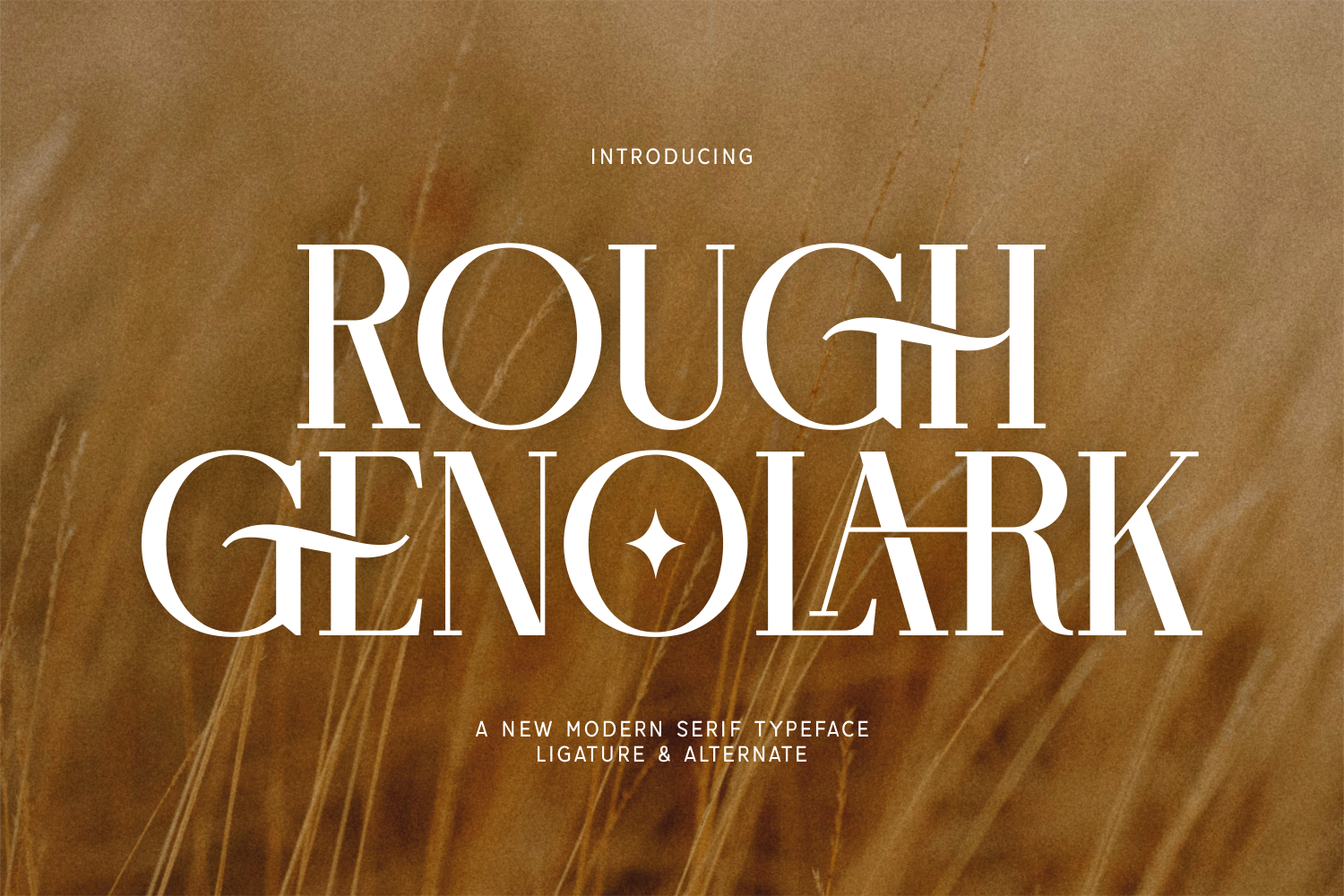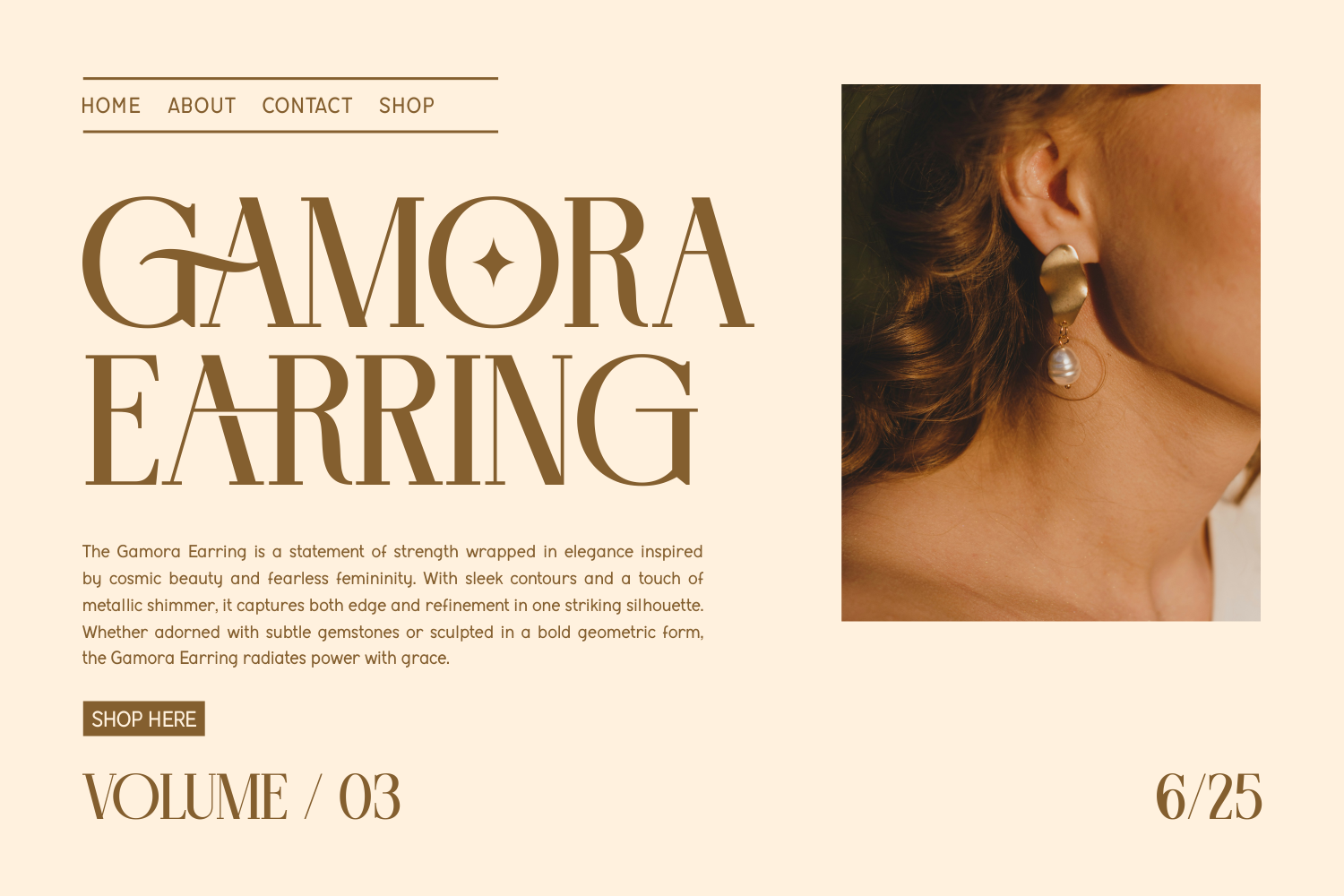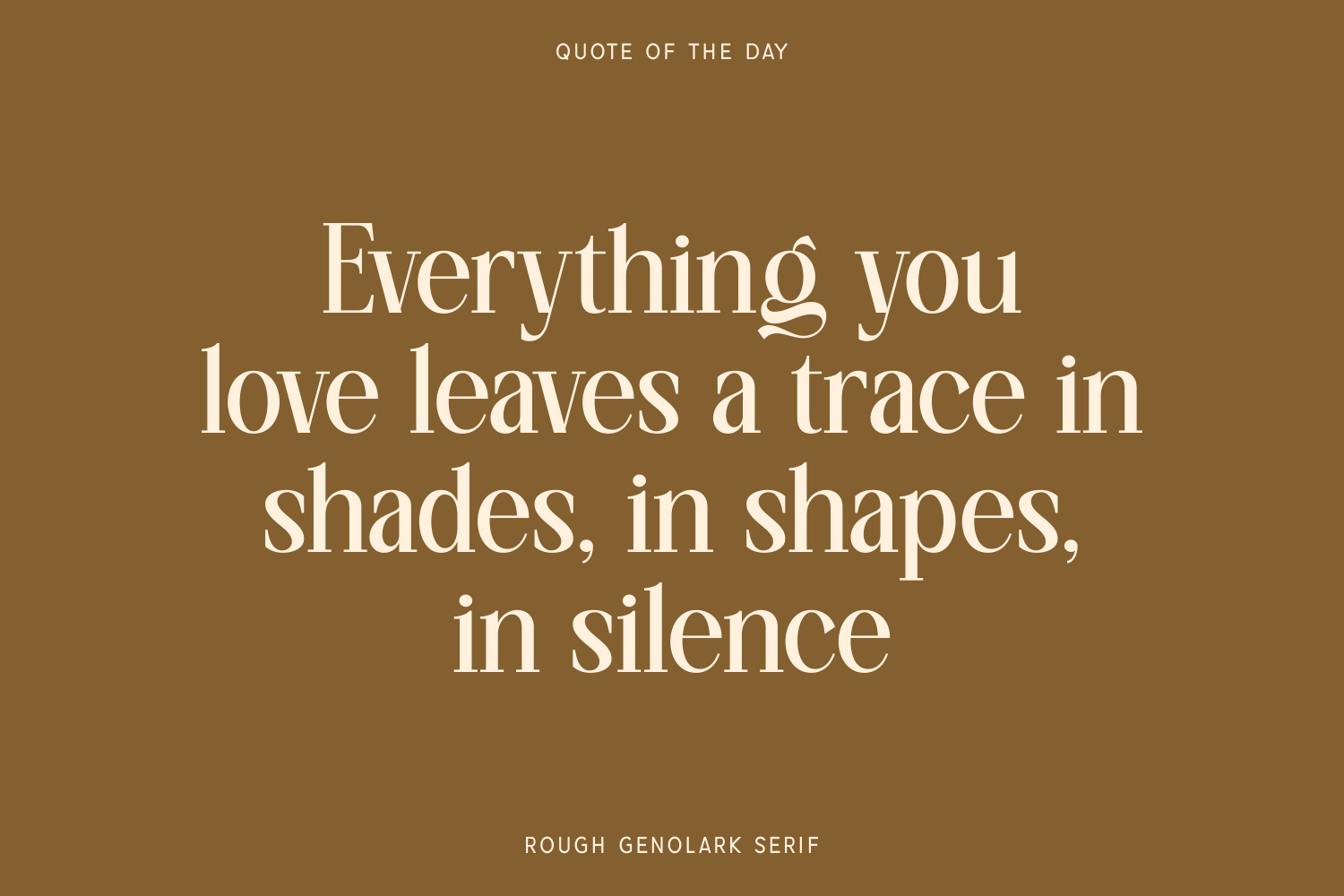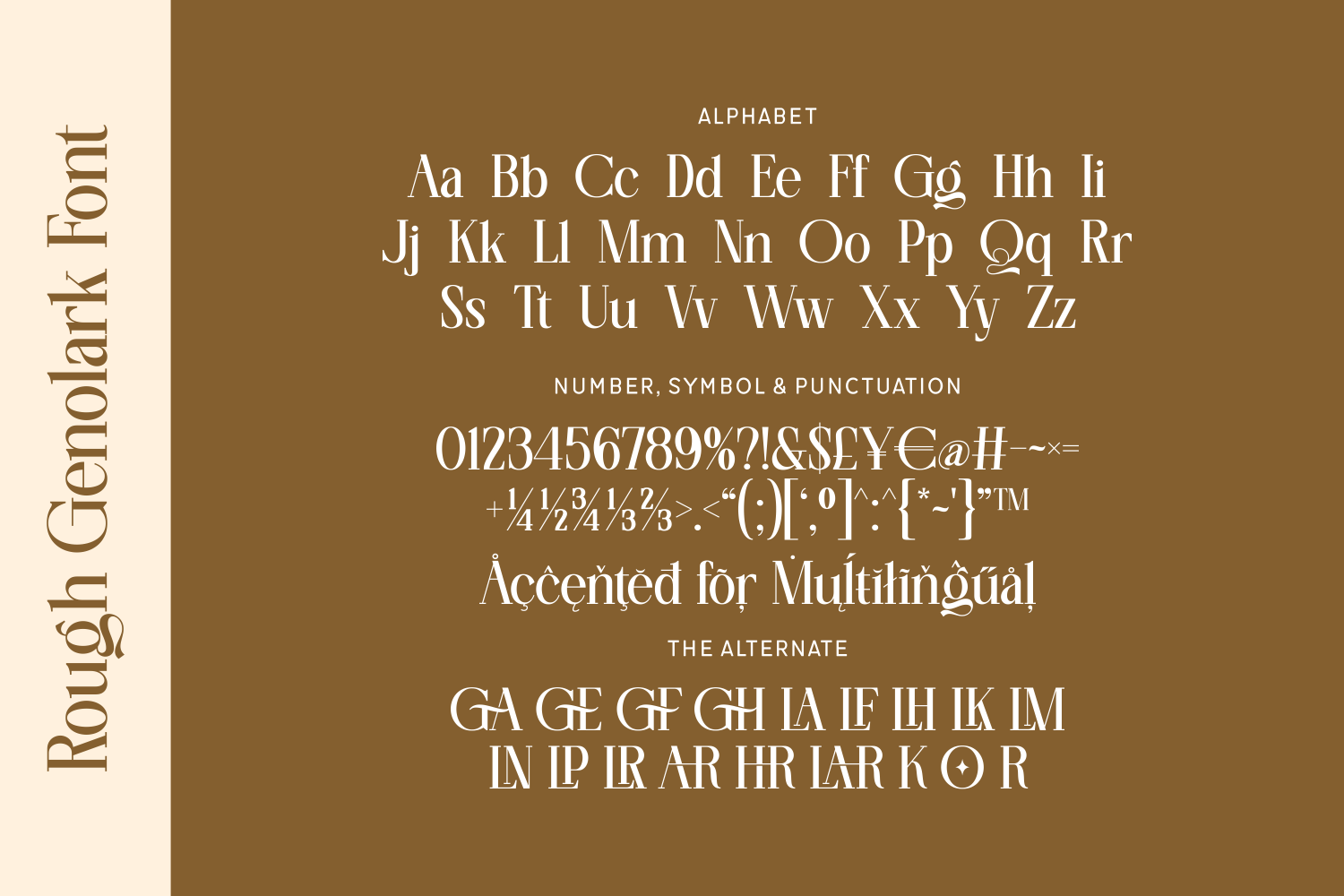
Rough Genolark is a bold and contemporary serif typeface designed to captivate with dramatic flair and precision. Featuring striking ligatures, sharp contrasts, and artistic alternates, this font is perfect for upscale branding, editorial headlines, and luxury packaging.
Rough Genolark offers full multilingual support, unique uppercase ligatures, and a set of refined alternates that enhance creative possibilities. Whether used in logos or refined print layouts, this font delivers unforgettable visual sophistication.